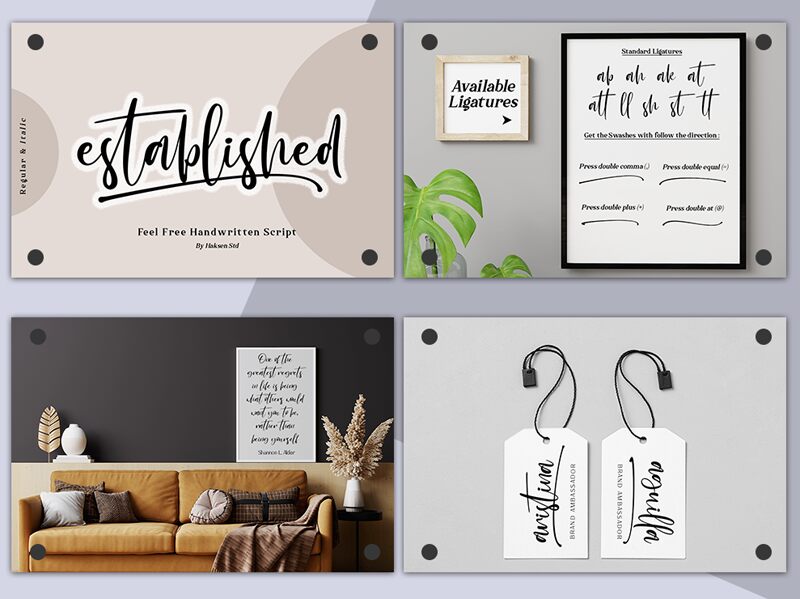
Established, designed by Haksen Studio, is a font that exudes the charm of human touch with its handwritten style. Its flowing lines and organic forms give it a sense of warmth and personality often sought after in design. The elegant curves mimic the variability and flair of fine penmanship, making each character appear as though it was thoughtfully crafted.
This font's aesthetic makes it ideal for applications where a personal, bespoke feel is desired. From invitations to branding, Established can add an authentic handwritten element that resonates with an audience looking for craftsmanship and individuality. It stands out in creative projects that benefit from a touch of sophistication without losing the intimate connection that handwritten fonts provide.